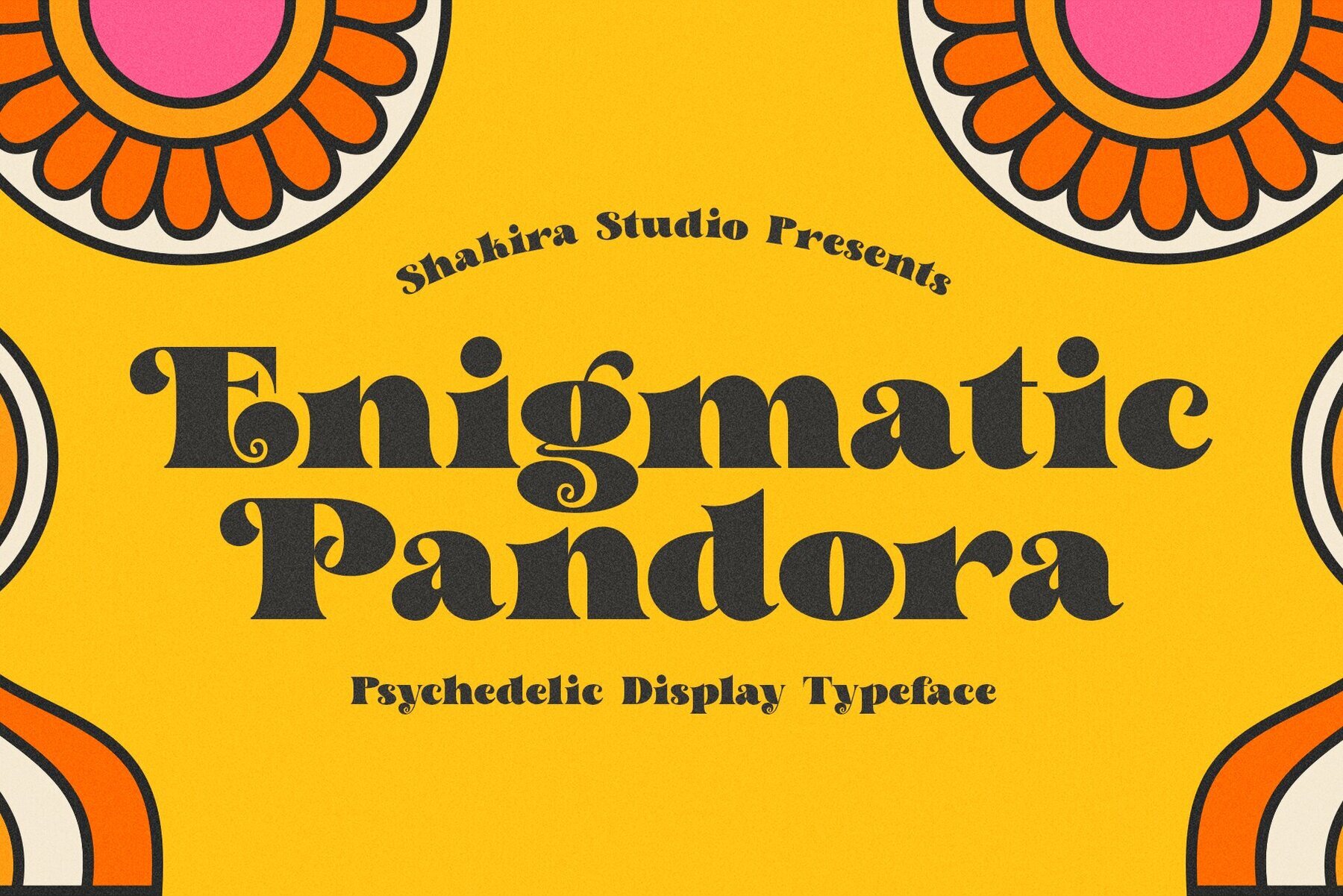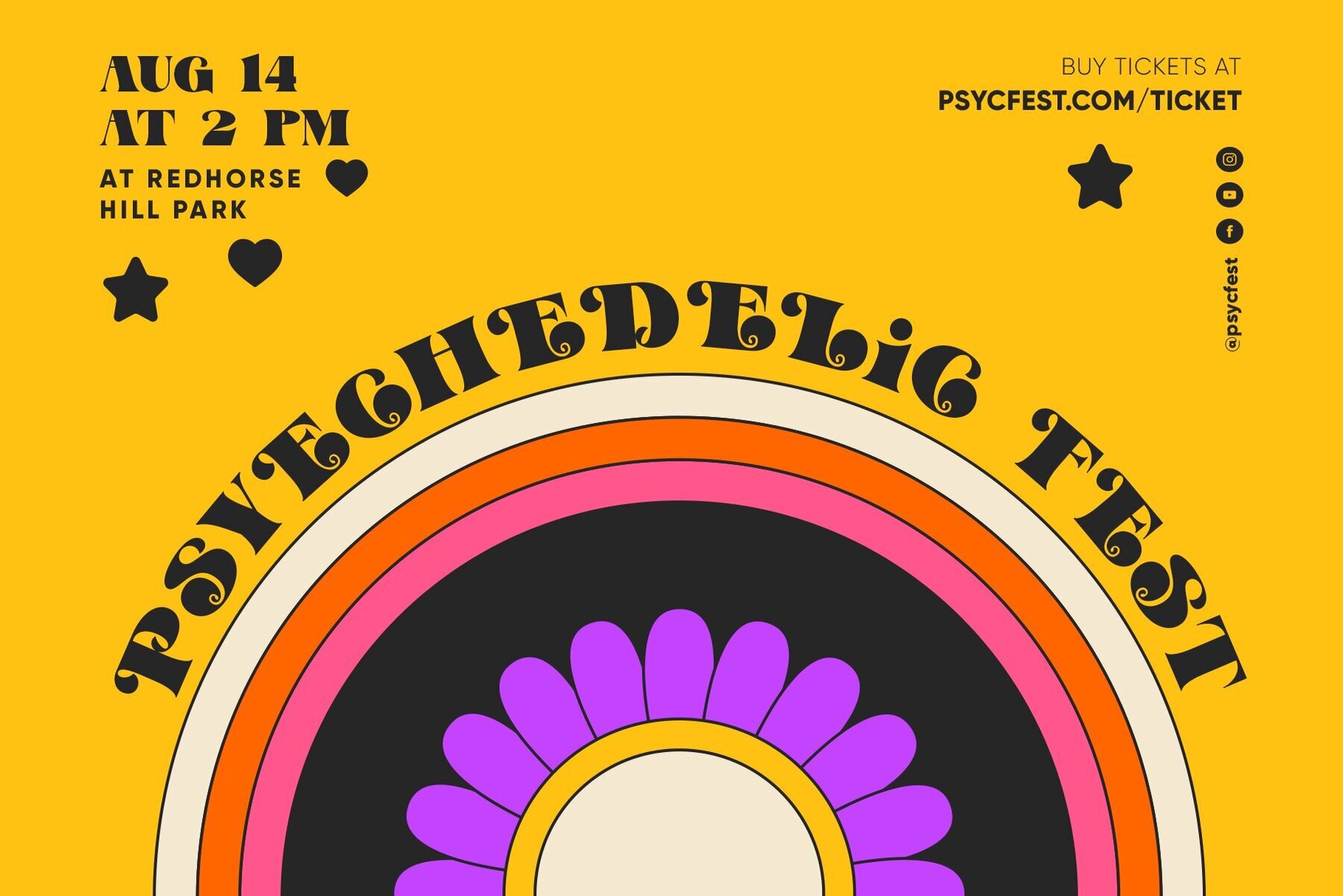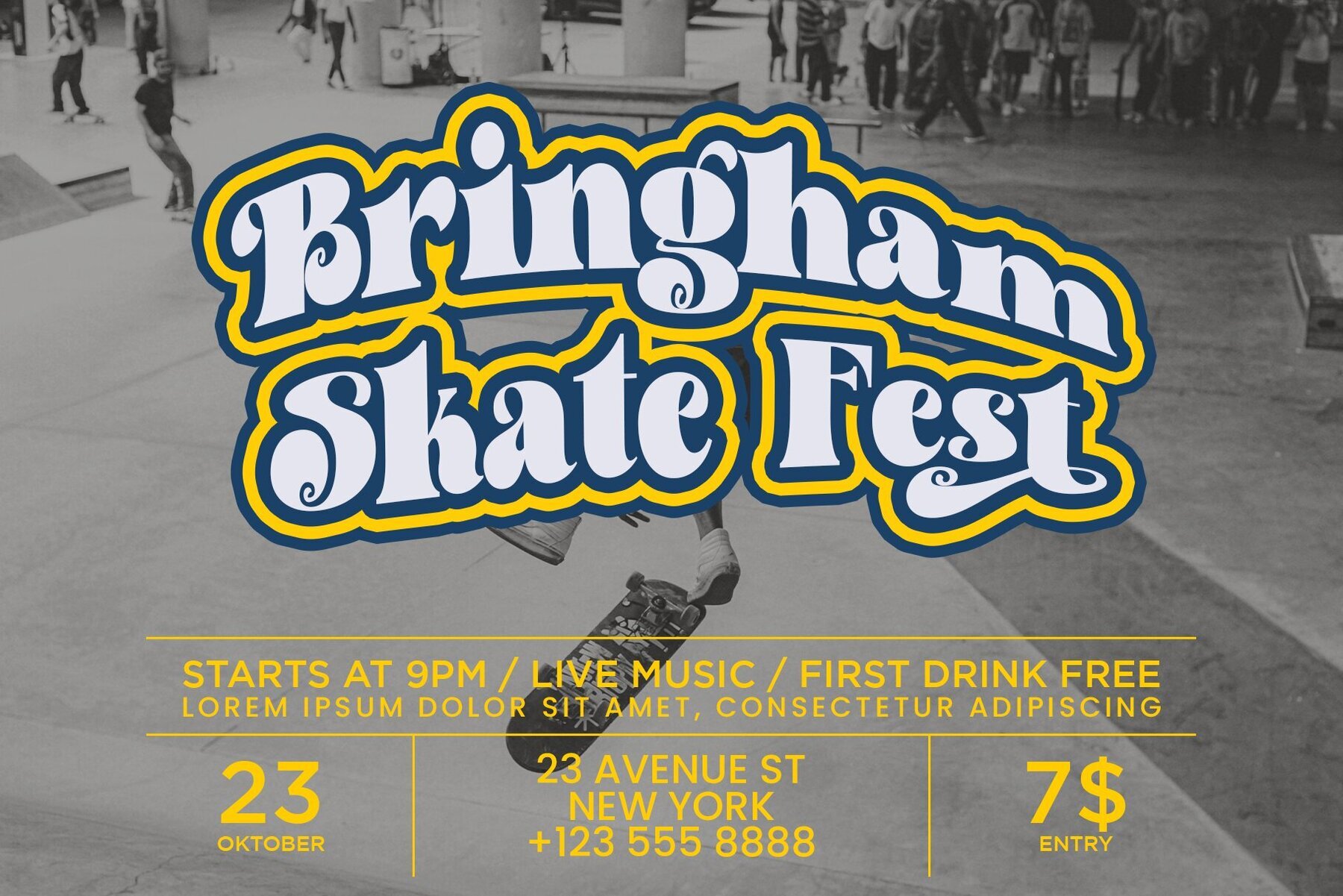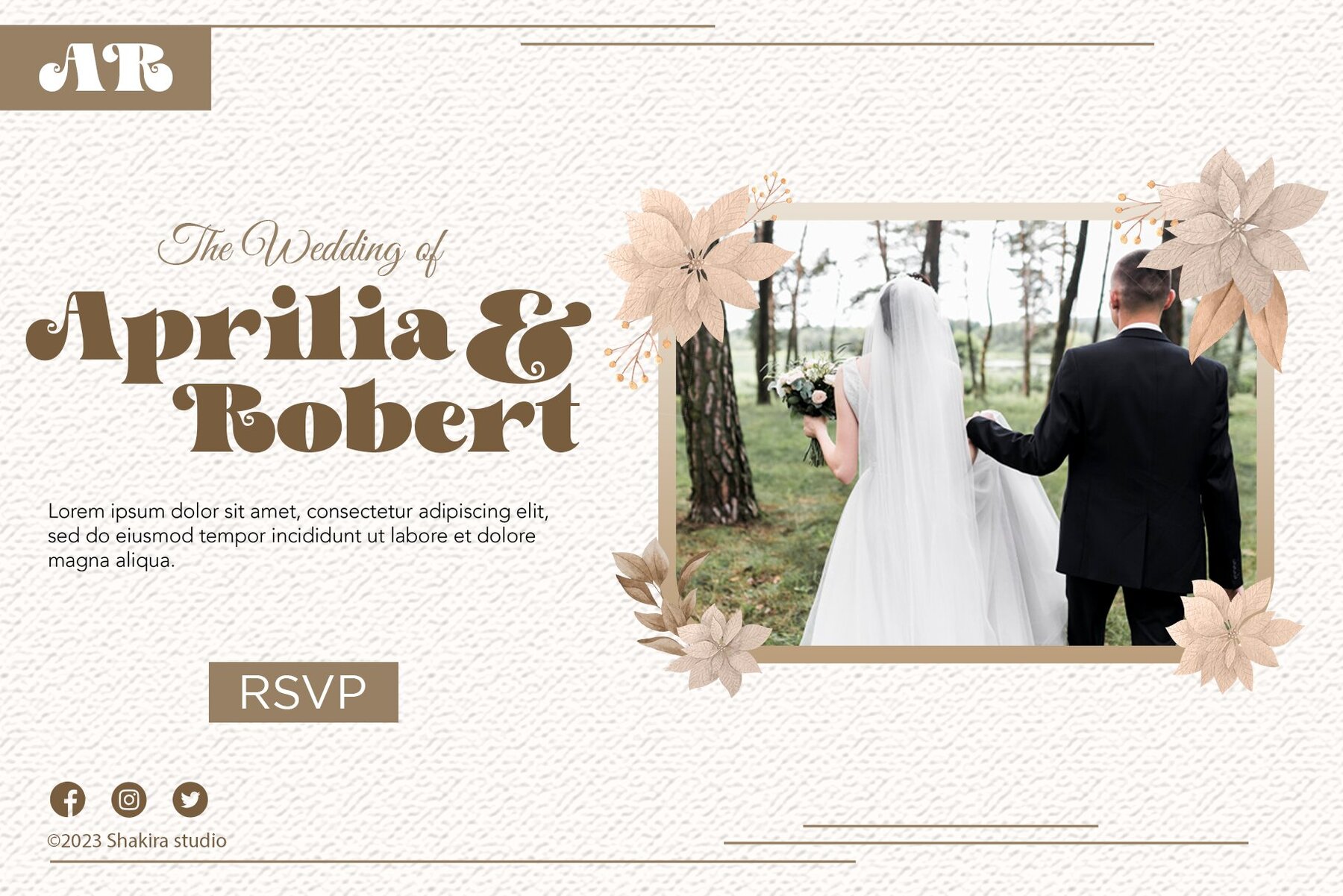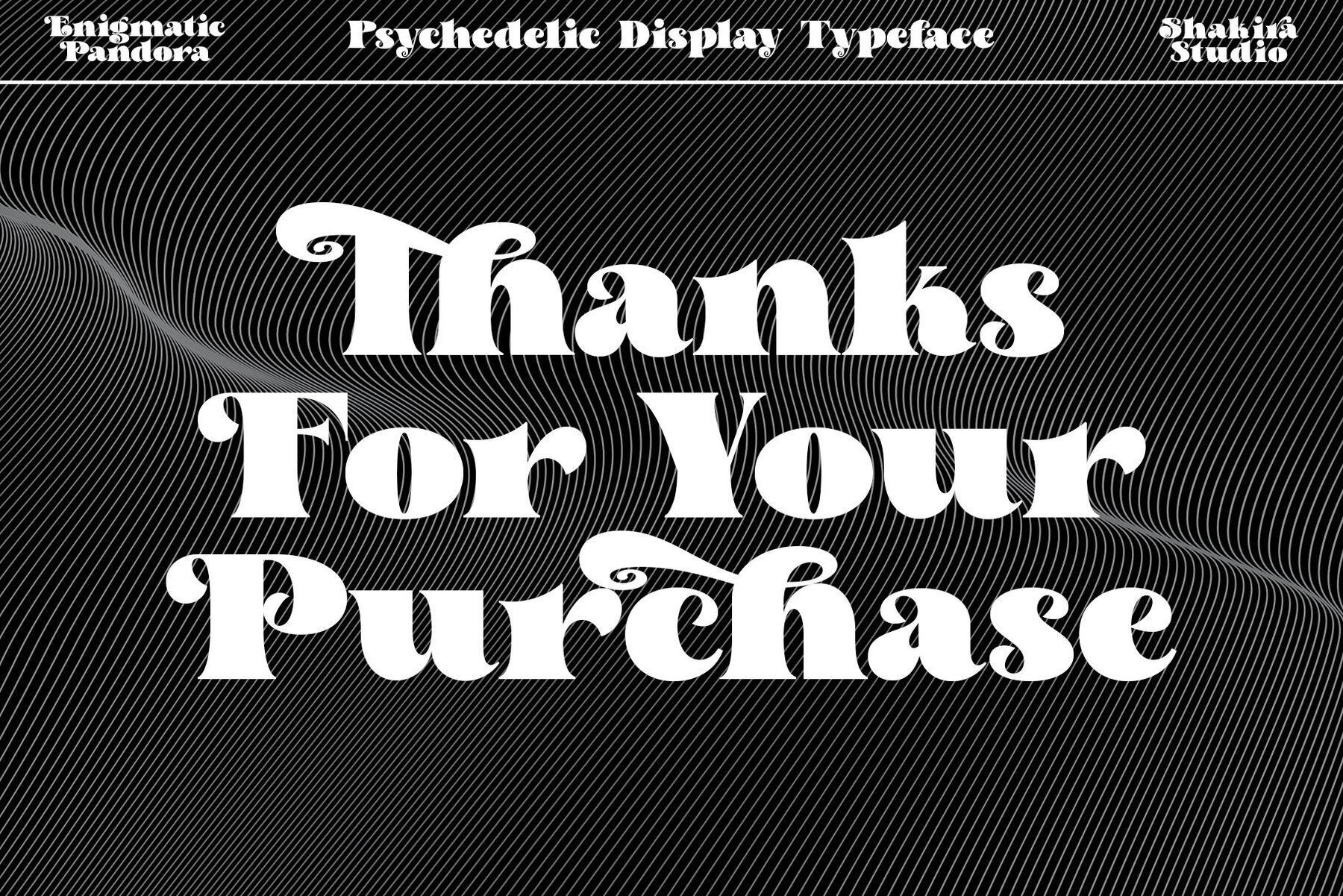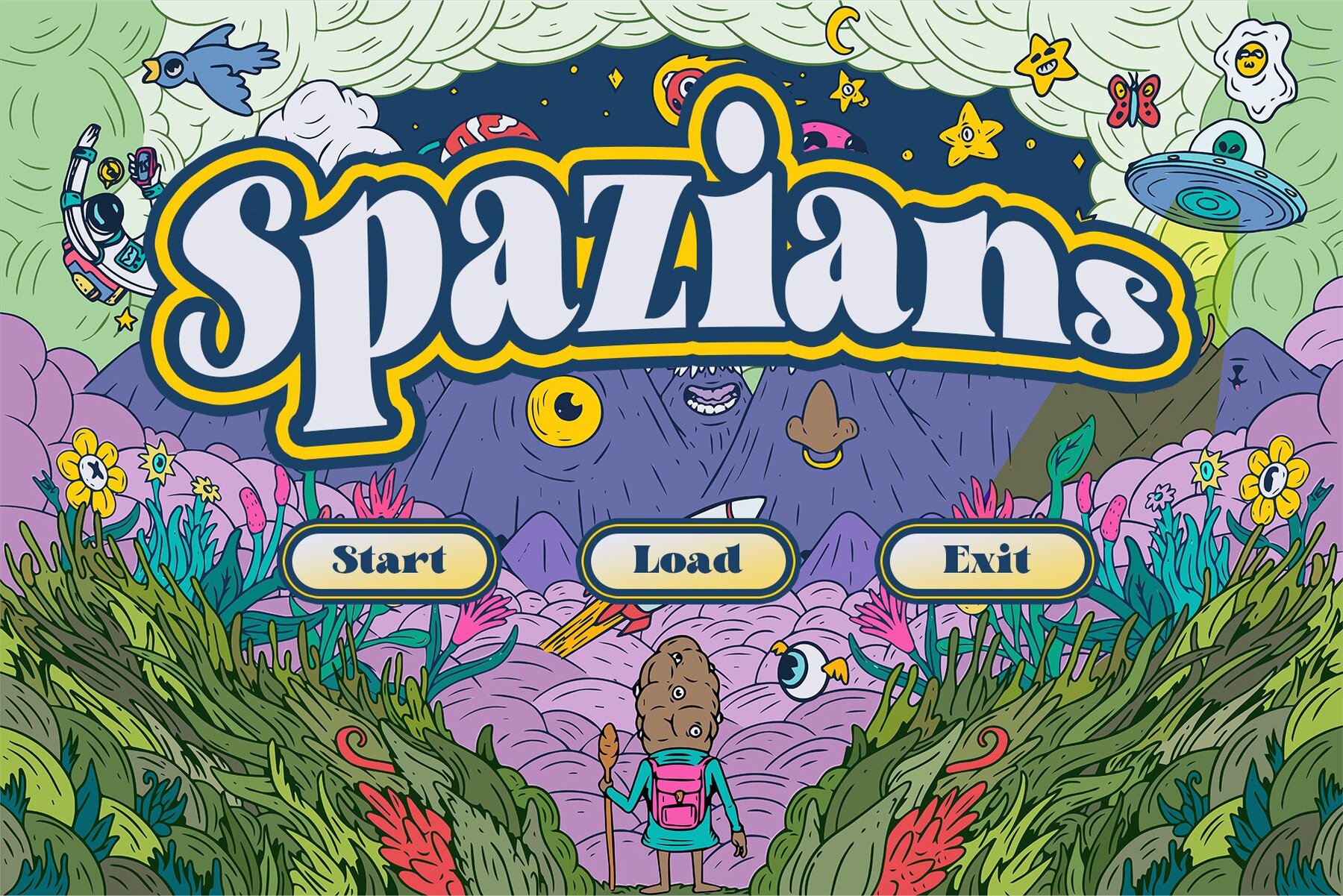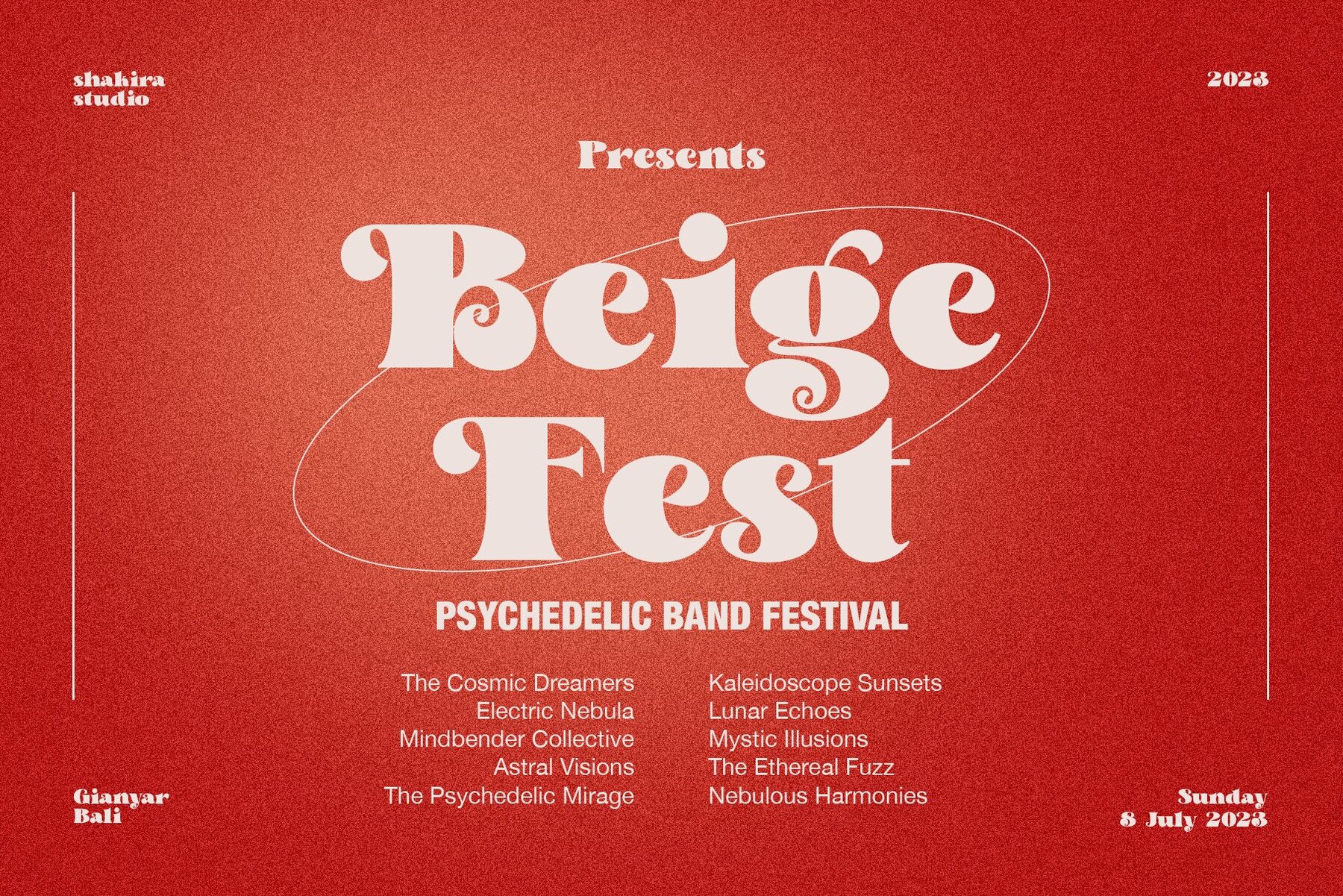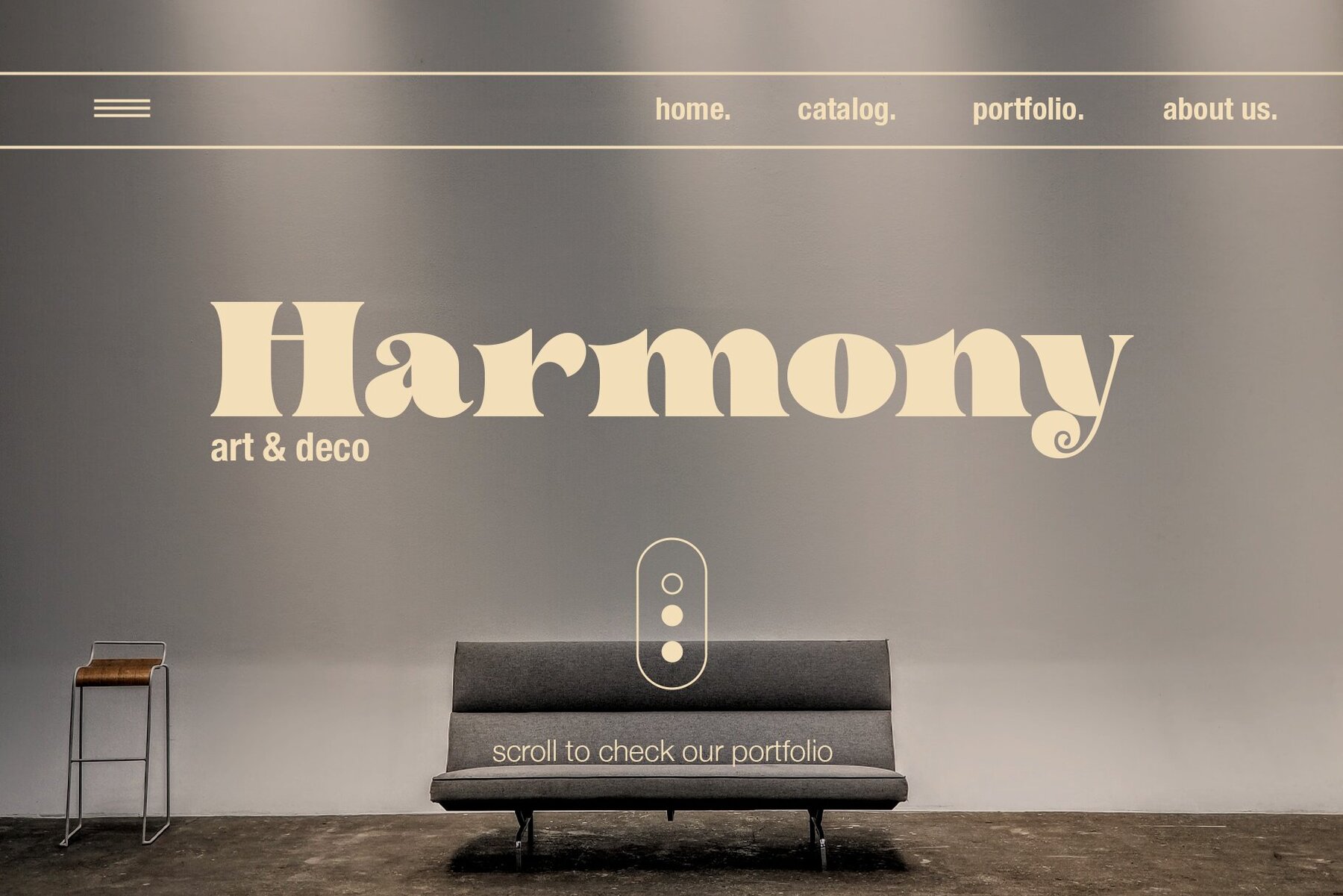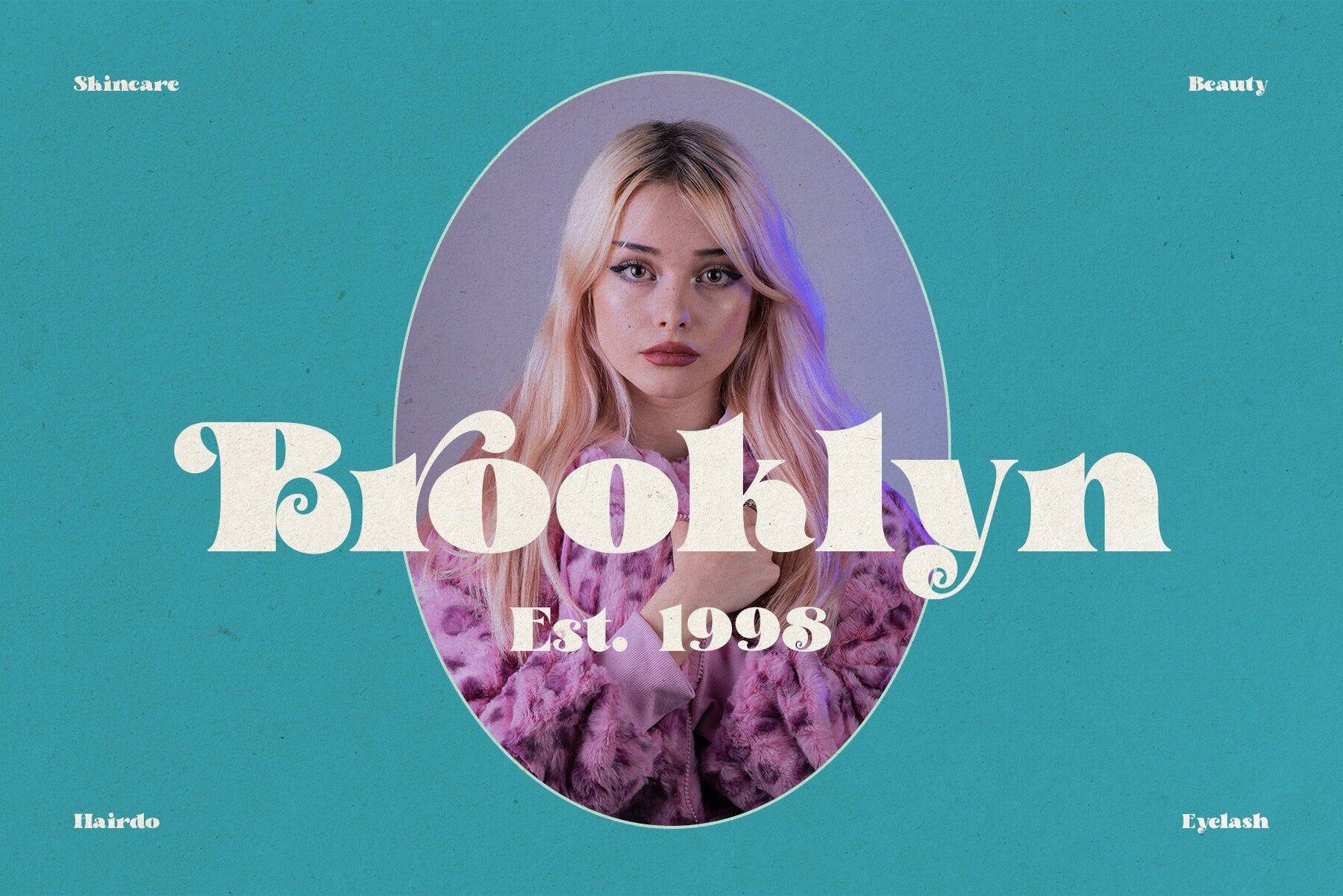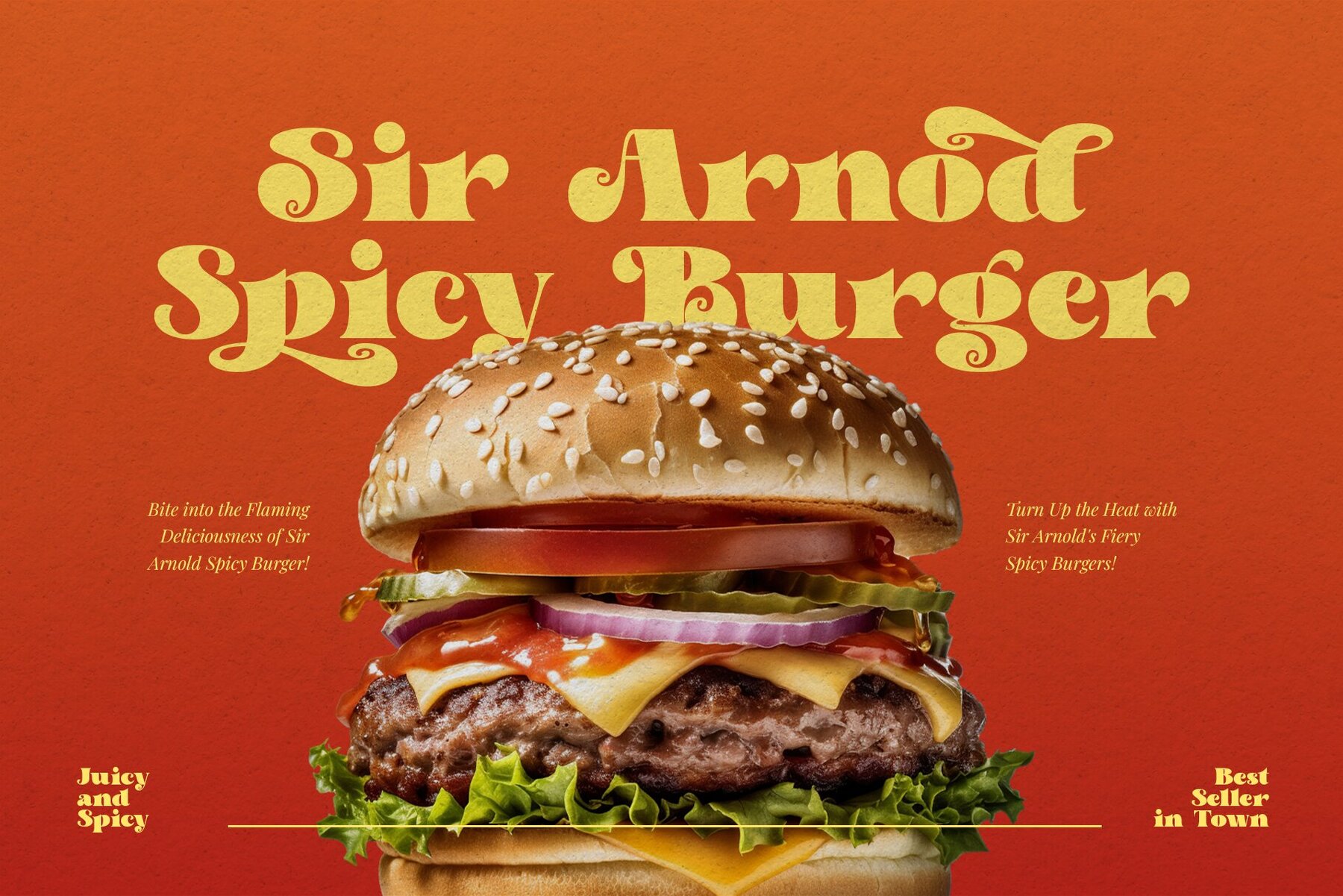
Enigmatic Pandora Font
Say hello to new serif font, Enigmatic Pandora! Enigmatic Pandora is a serif font that combines a psychedelic uniqueness with bold boldness in each letter. With its eye-catching psychedelic characteristics, Enigmatic Pandora exudes an aura of mystery and magic that is hard to describe. Enigmatic Pandora offers a great typography experience with bold bold characters. Its bold and striking design makes each letter a centerpiece in the design. Combining stunning psychedelic elements with strong, compelling contours, this font provides a unique and compelling visual dimension. Enigmatic Pandora is suitable for use in design projects that want to express visual uniqueness and tension. This font is ideal for titles, posters, illustrations, album designs, and other creative projects that need an extraordinary and bold look. Here's what you get: